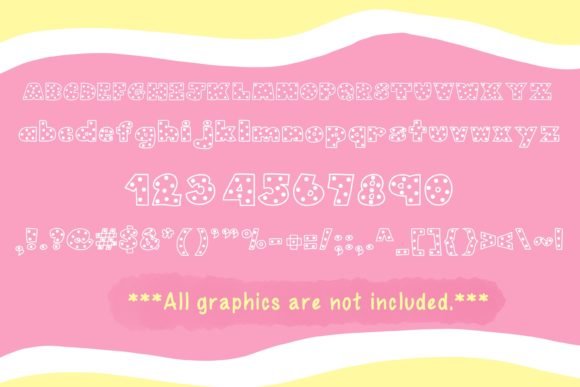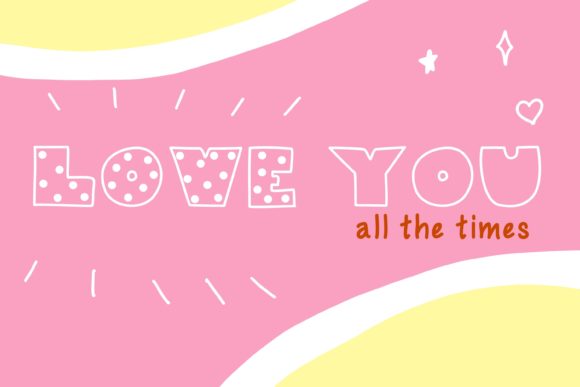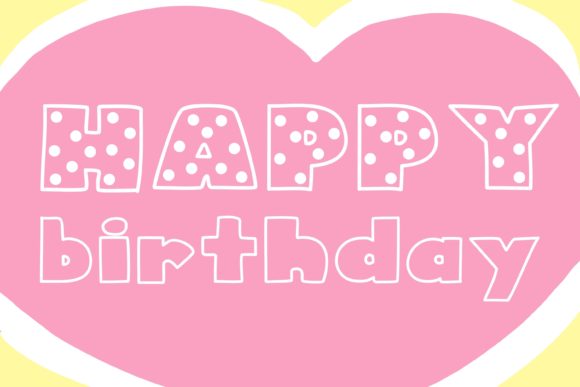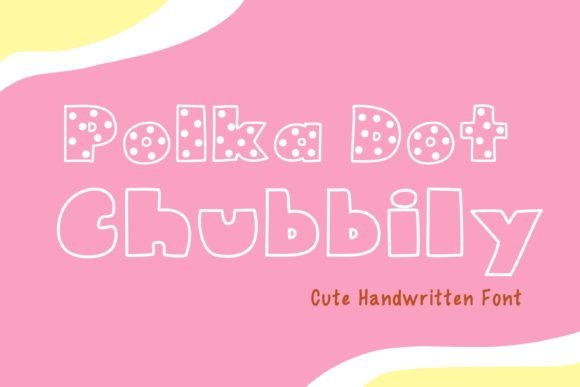
Introduction to Polka Dot Chubbily Font
Polka Dot Chubbily is a cool, friendly and outlined display font.
This font is perfect for children themed designs, especially when combined with bright colors .
Key Features of Polka Dot Chubbily Font